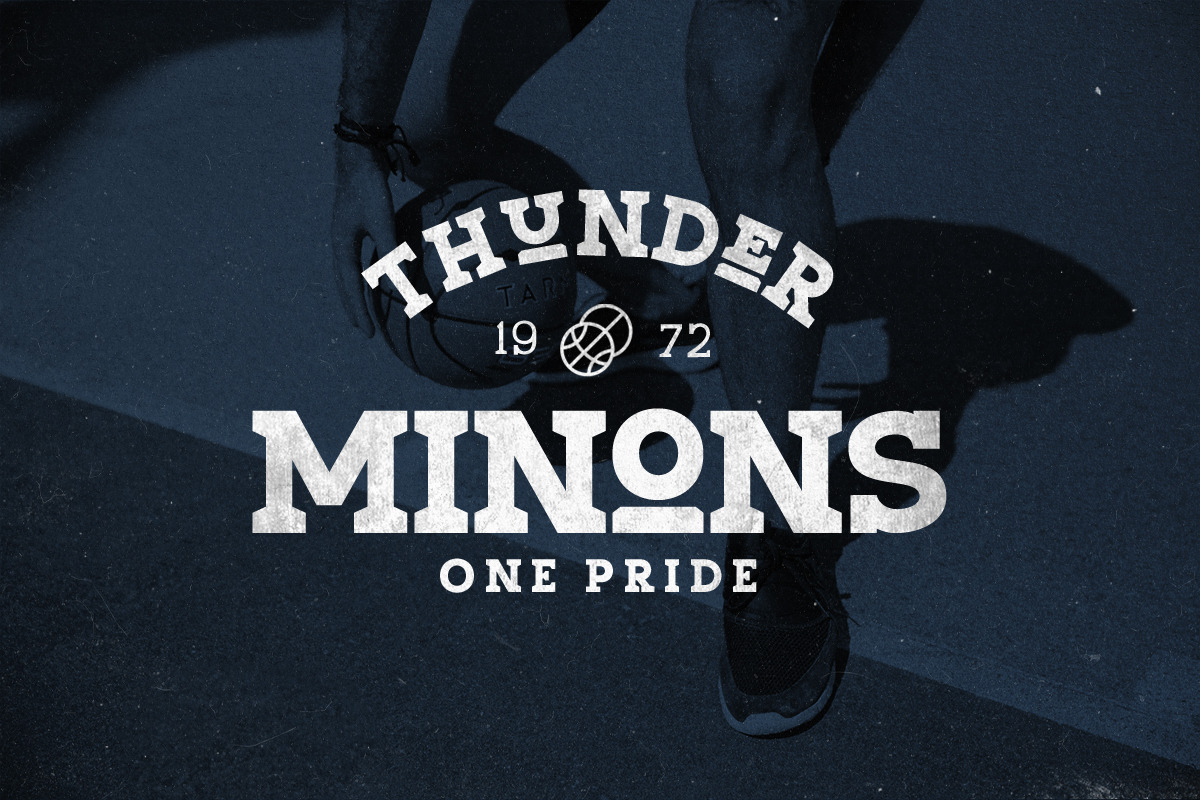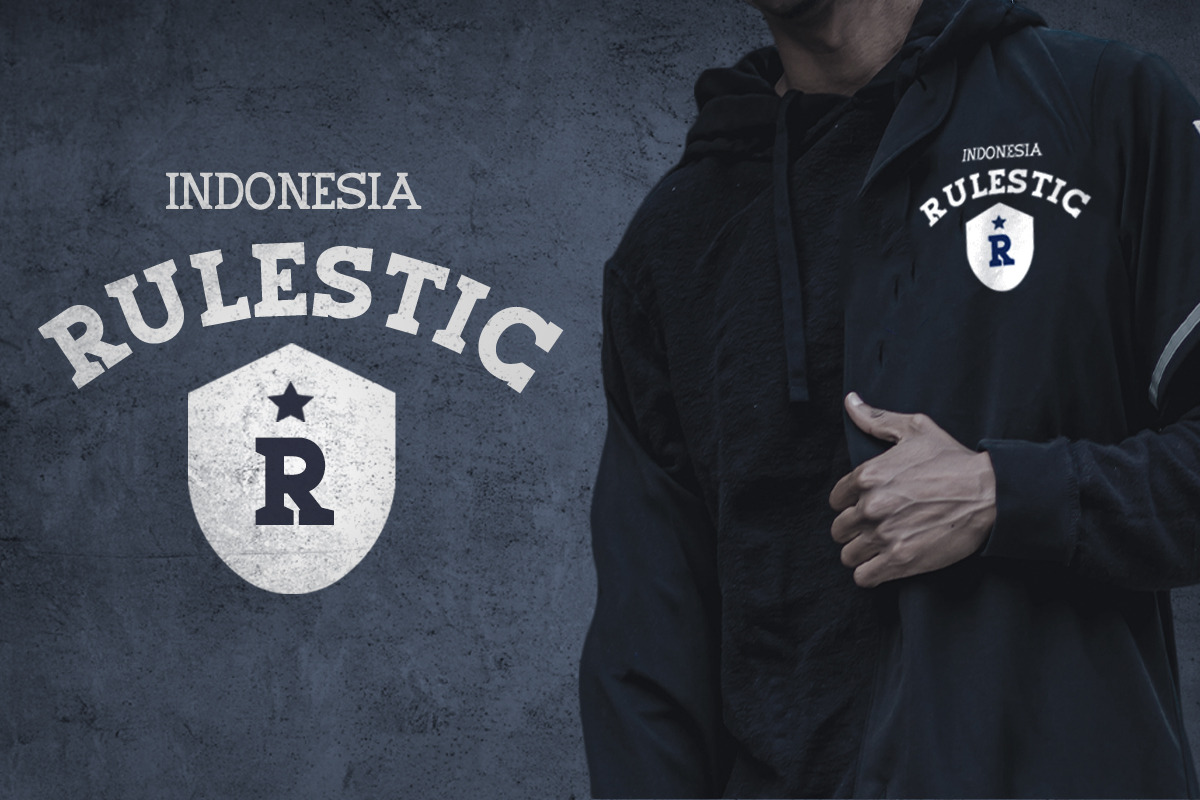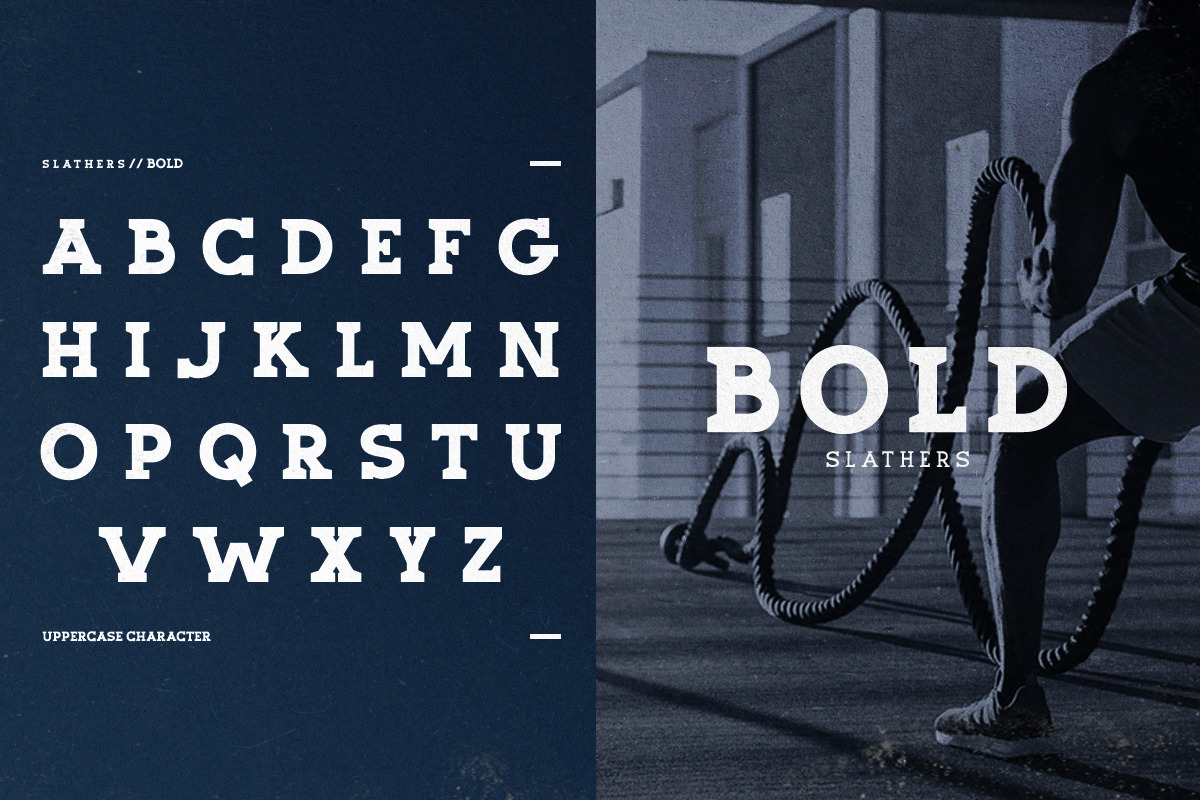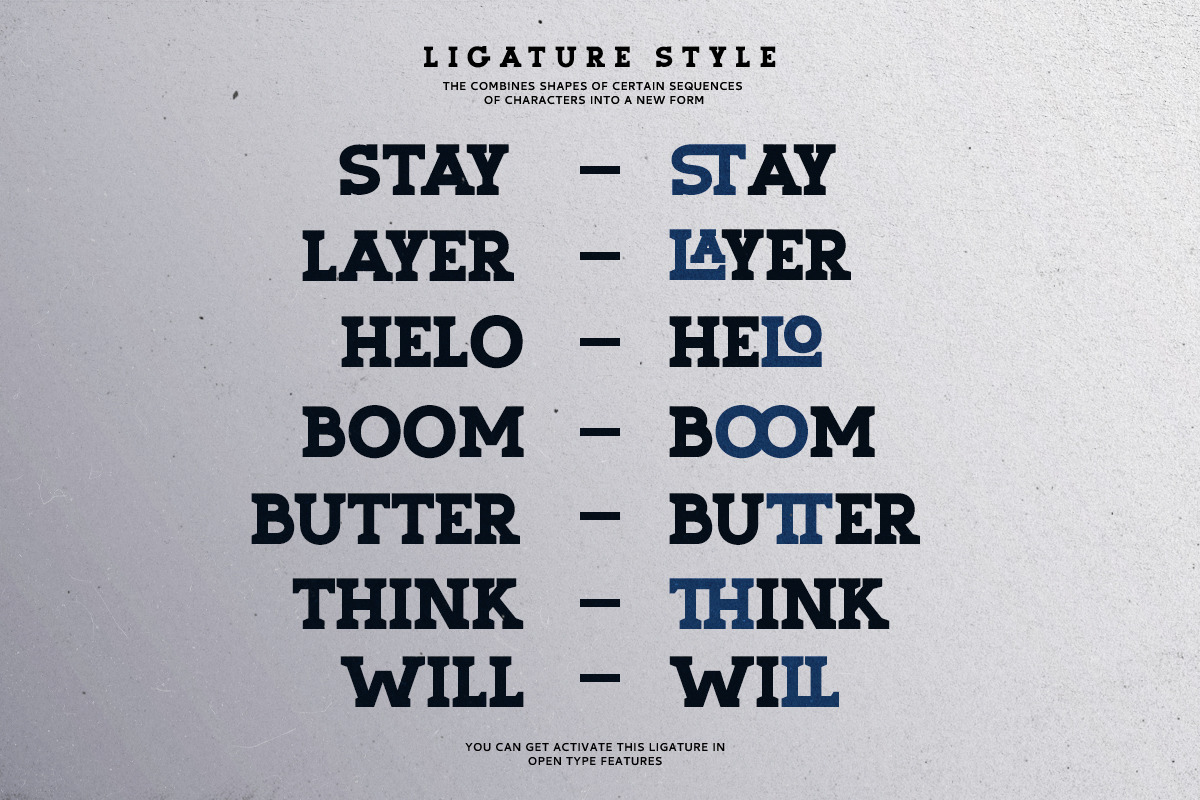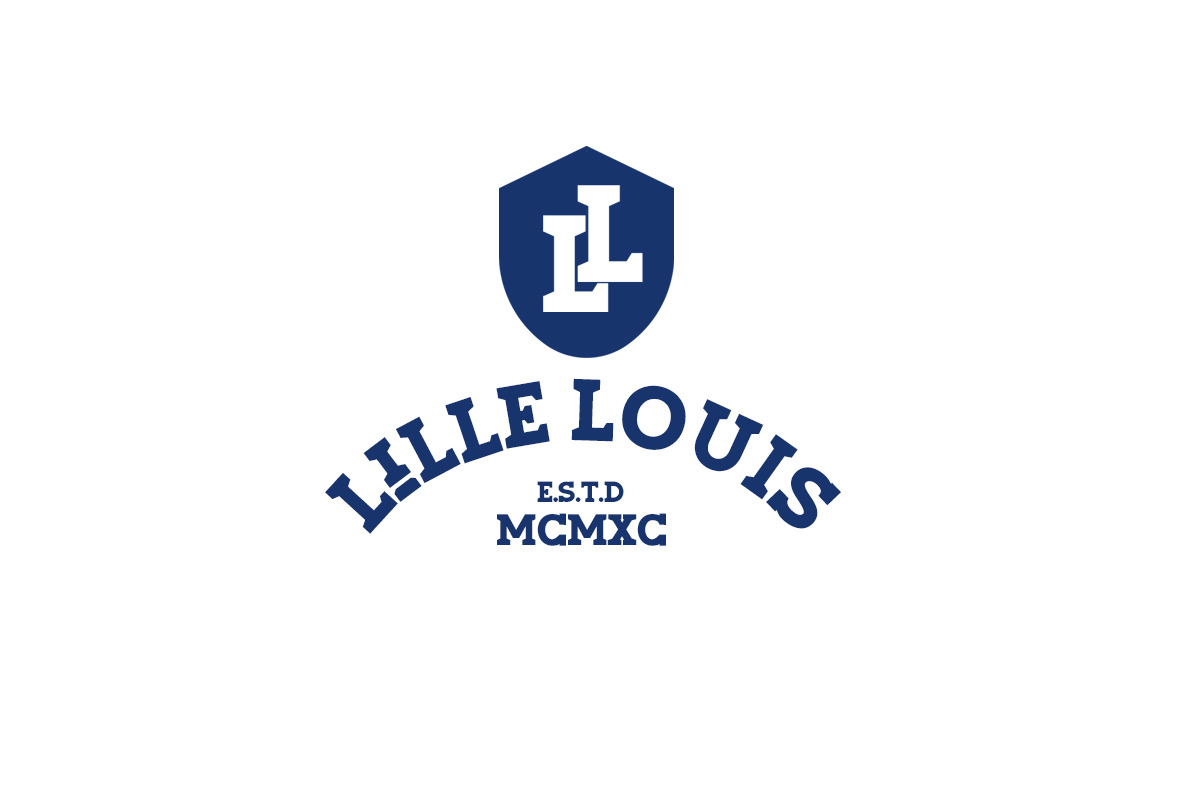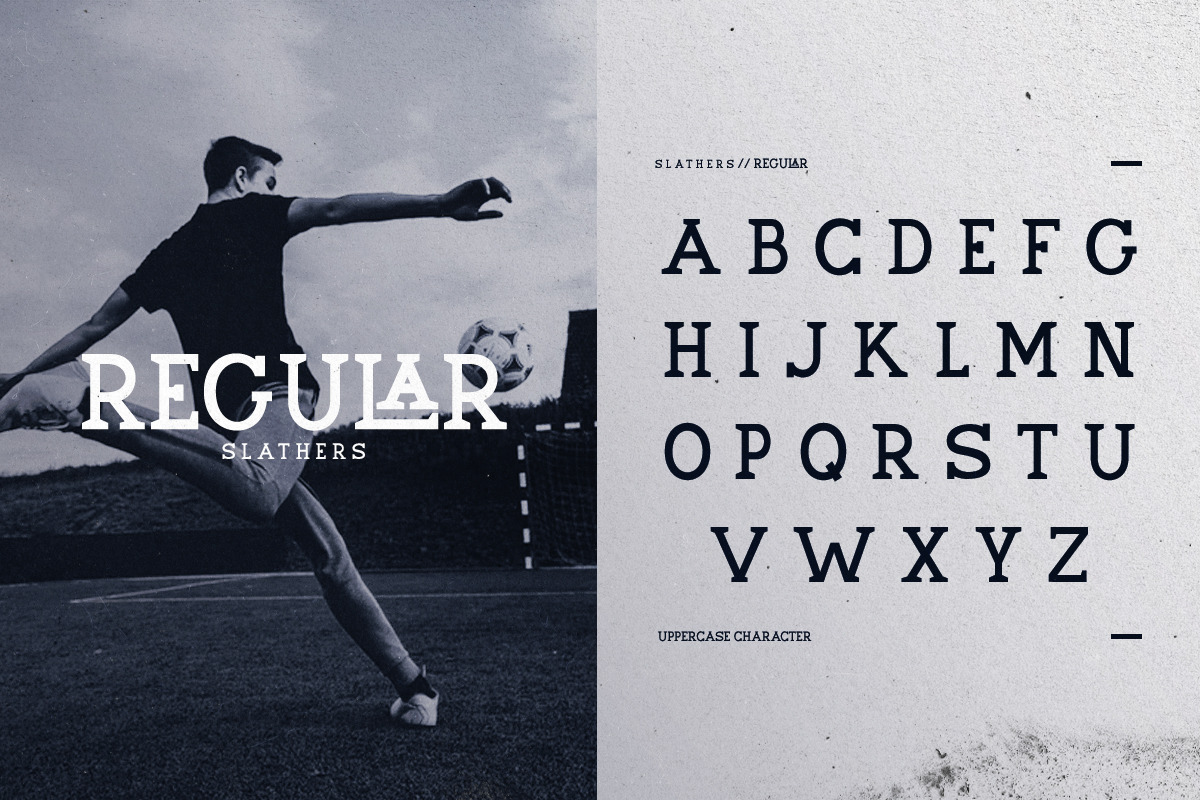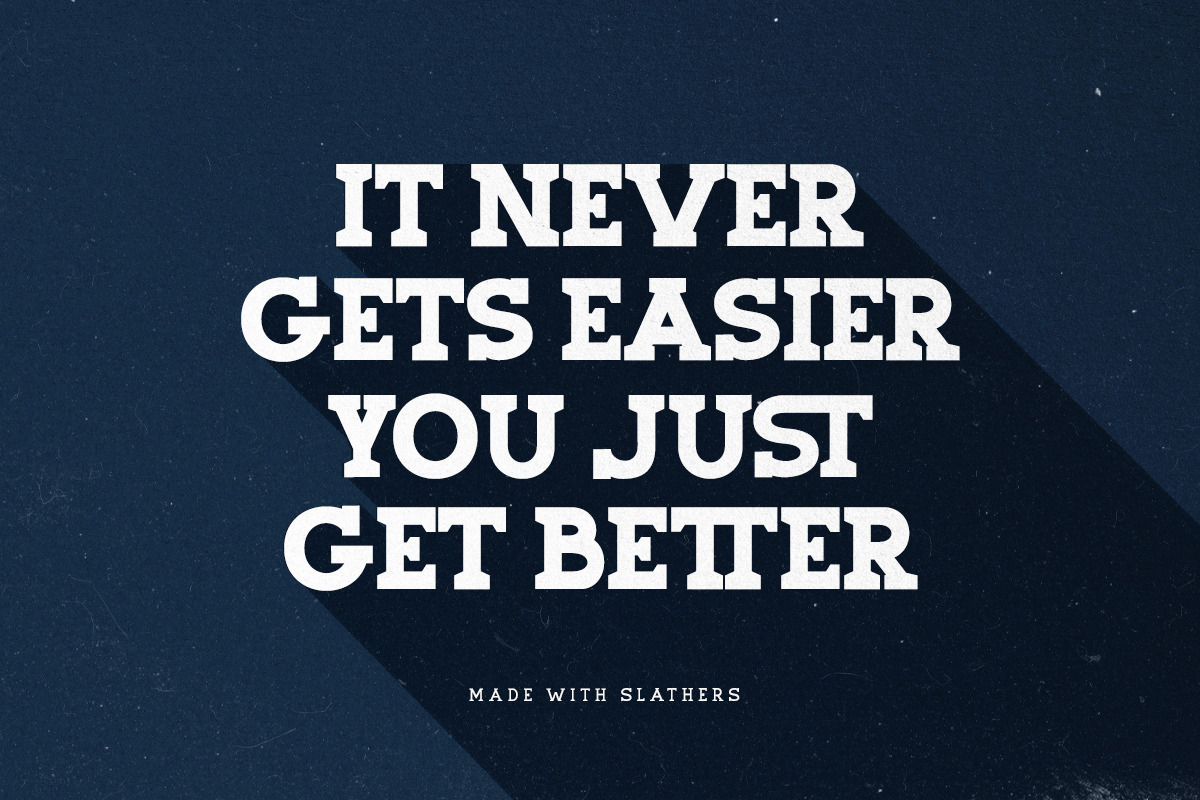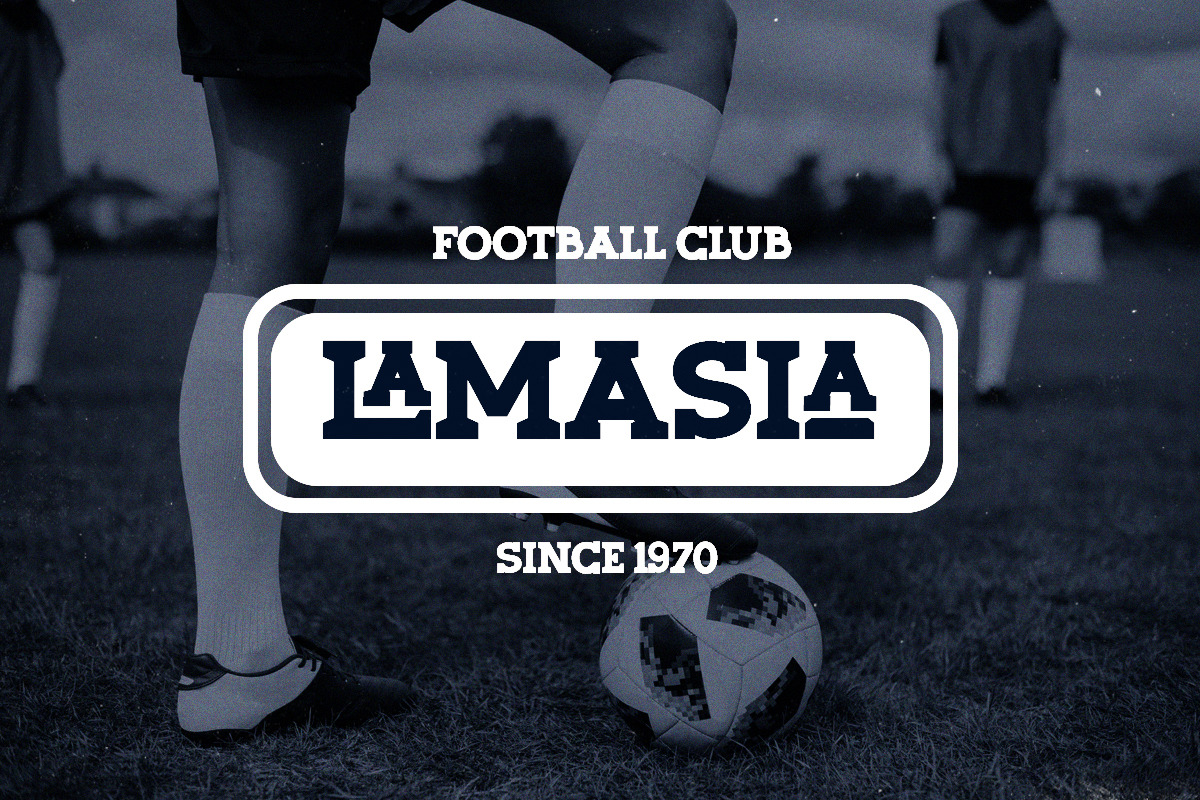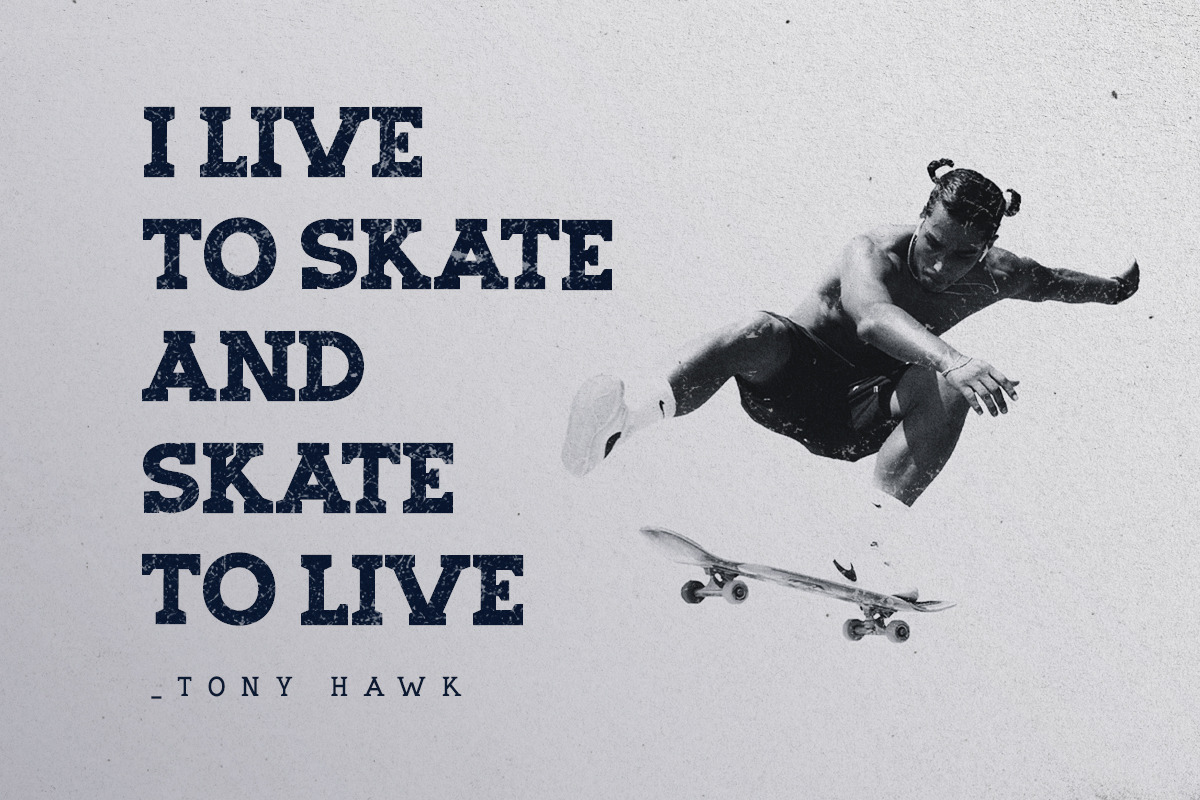
Slathers - Ligature Slab Serif
Proudly present, Slathers, Ligature Slab Serif!
Slathers is a slab serif font family with bunch of ligatures. Comes with two styles, Regular and Bold, will make your project stunning and strong. You can use this fonts for branding, logotype, especially for basketball and sport logo. This fonts also support multilingual.